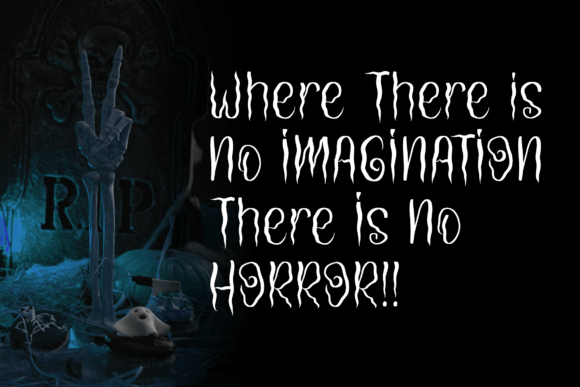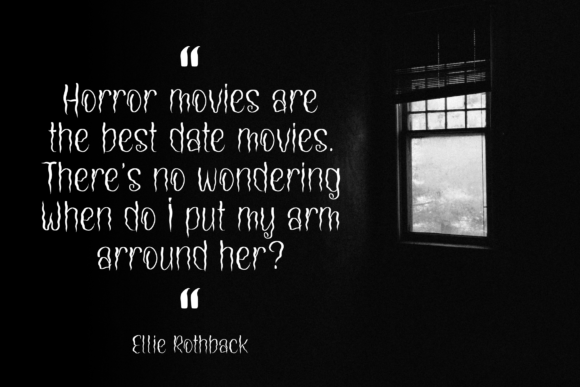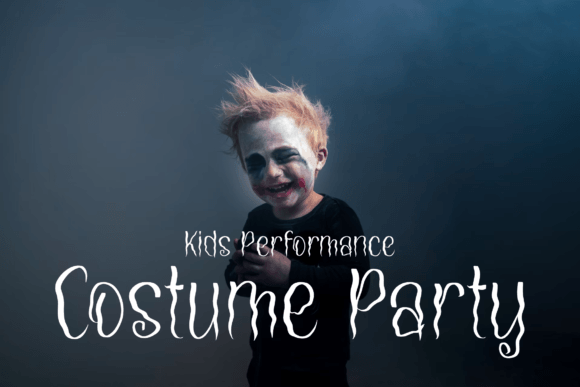
Introduction to Nightmare Season Font
Nightmare Season – Halloween display font, suitable for any projects such as logos, branding projects, homeware designs, product packaging, mugs, quotes, posters, shopping bags, t-shirts, book covers, name cards, invitation cards, greeting cards, labels, photography, watermark, special events, and all your other lovely projects that need spooky typography.
Key Features of Nightmare Season Font
Why Choose Nightmare Season Font?
Nightmare Season Font offers exceptional quality and versatility, making it a valuable addition to your design toolkit. Whether you’re creating for personal projects or commercial use, Nightmare Season Font delivers professional results.